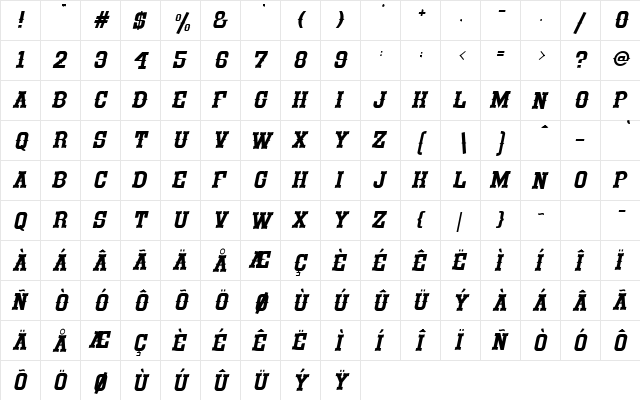
Glamour Wave Italic
Design Context for Glamour Wave Typeface
Glamour Wave is a composed and adaptable typeface that performs quietly and consistently across a wide range of design contexts. The dynamic lean of this cut emphasises speed and emphasis in any layout.
Pro Tip: Use Glamour Wave for emphasis, pull quotes, and subheadings where its slanted energy can add rhythm to the layout.